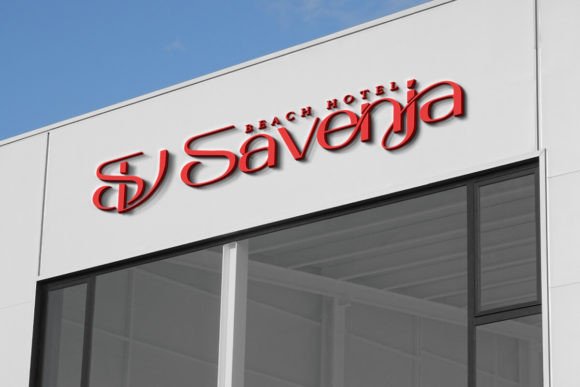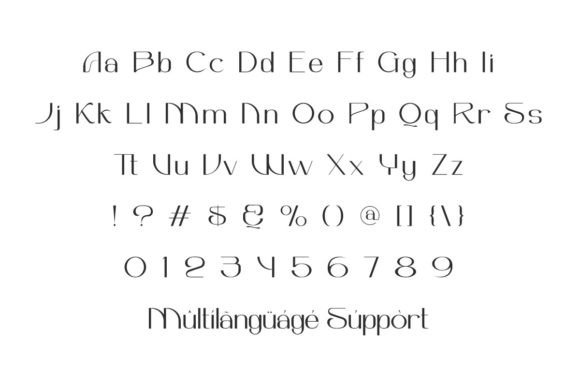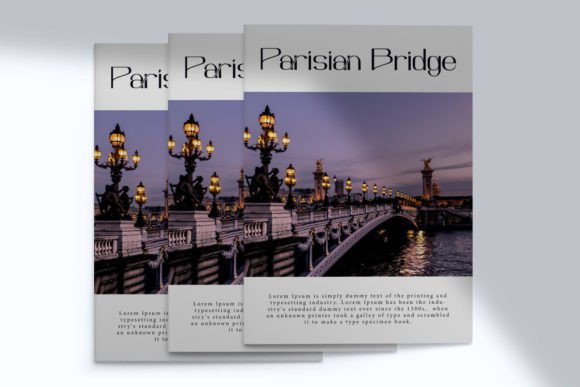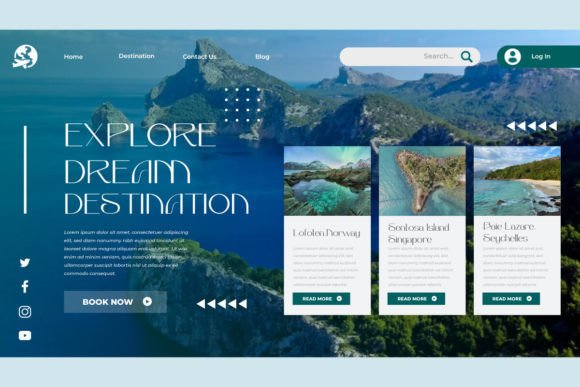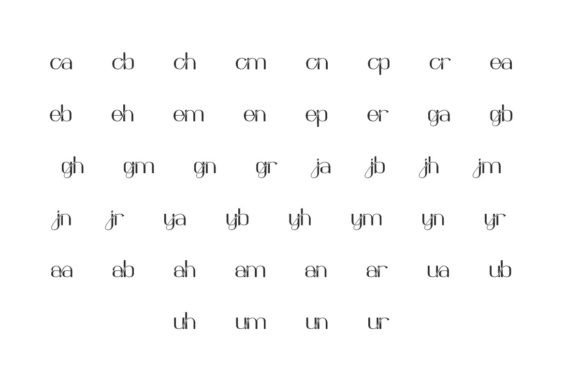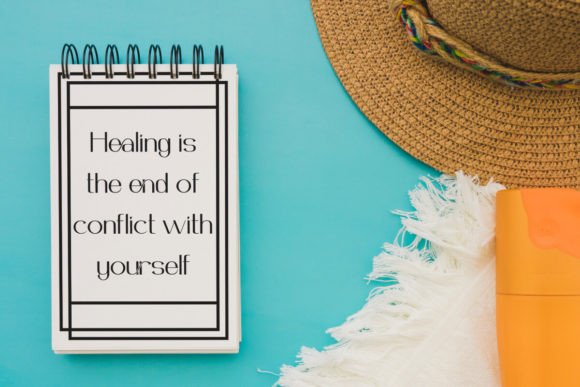
Healing Again Font: Elevate Your Designs with Elegance and Modernity
In the world of design, fonts play a crucial role in conveying messages, evoking emotions, and creating lasting impressions. For designers and crafters seeking a font that embodies elegance, modernity, and versatility, Healing Again Font is an exceptional choice. This stunning sans-serif display font is poised to revolutionize your designs, whether you’re working on apps, billboards, brand logos, or a myriad of other projects.
Unleash Your Creativity with Healing Again Font
Healing Again Font boasts a modern, eye-catching style that instantly captures attention. Its elegant sans-serif design ensures that your creations stand out in a crowded digital landscape. With this font, you can elevate your designs to new heights, making them more engaging, sophisticated, and memorable. From business cards to billboards, and from digital screens to print materials, Healing Again Font is the perfect companion for any design endeavor.
One of the key benefits of Healing Again Font is its incredible versatility. This font is not limited to a specific type of project; rather, it can be used across a wide range of applications, including:
- Apps: Give your app a professional and modern look with Healing Again Font.
- Billboards: Make a bold statement with this eye-catching font.
- Brand Logos: Create a lasting impression with a logo that exudes elegance and sophistication.
- Brochures: Elevate your marketing materials with a font that commands attention.
- Business Cards: Stand out in a stack of cards with a design that showcases Healing Again Font.
- Catalogs: Present your products in a stylish and modern light.
- Covers: Add a touch of elegance to your book, magazine, or album covers.
- Embossed Designs: Create stunning embossed effects that leave a lasting impression.
- Flyers: Grab attention with a font that is both modern and eye-catching.
- Headers: Elevate your website or document headers with a sophisticated font.
- Invitations: Make your invitations truly special with Healing Again Font.
- Labels: Add a touch of elegance to your product labels.
- Magazine Catalogs: Create visually stunning catalogs that showcase your products in style.
- Mockup Designs: Bring your design concepts to life with Healing Again Font.
- Posters: Create bold and eye-catching posters that demand attention.
- Product Packaging: Elevate your product packaging with a modern and sophisticated font.
- Quotes: Present your quotes in a stylish and elegant manner.
- Screen Print: Create stunning screen print designs that showcase Healing Again Font.
- Signage: Make a lasting impression with eye-catching signage.
- Stationery: Elevate your stationery with a font that exudes elegance and sophistication.
- Stickers: Add a touch of modernity to your stickers.
- Title: Use Healing Again Font as a title font for your documents, presentations, or websites.
- Websites: Give your website a modern and professional look with Healing Again Font.
Why Choose Healing Again Font?
Healing Again Font offers a unique combination of elegance, modernity, and versatility, making it an ideal choice for designers and crafters. Here are just a few reasons why you should consider using Healing Again Font in your next project:
- Elegant Design: Healing Again Font features a sleek and sophisticated sans-serif design that instantly elevates your creations.
- Modern Style: This font boasts a modern eye-catching style that is sure to capture attention.
- Versatility: Use Healing Again Font across a wide range of applications, from digital screens to print materials.
- Easy to Read: Despite its elegant and modern design, Healing Again Font remains easy to read, making it perfect for body text and headlines.
Healing Again Font is a game-changer for designers and crafters seeking to elevate their creations with elegance, modernity, and versatility. With its stunning sans-serif design and wide range of applications, this font is poised to revolutionize your designs. Whether you’re working on a small project or a large-scale campaign, Healing Again Font is the perfect choice. So why wait? Download Healing Again Font today and take your designs to new heights!